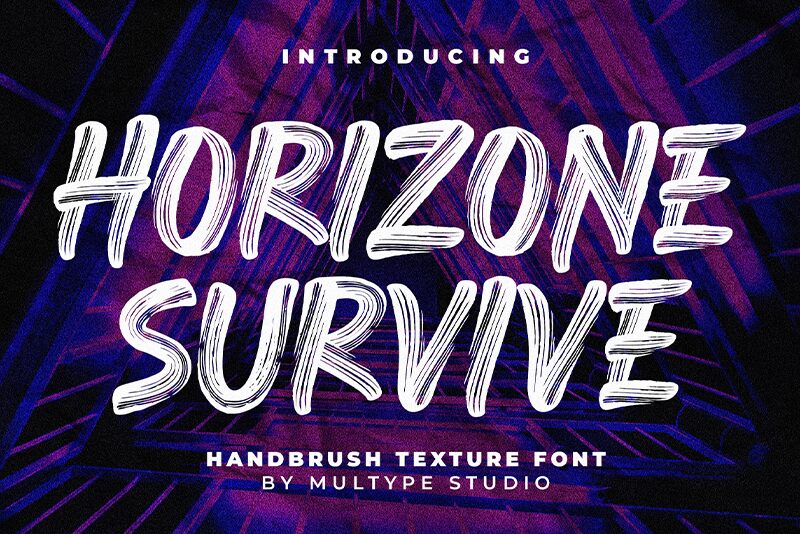
Horizone Survive font by Multype Studio stands out with its grunge texture and rugged appearance. This brush font captures a distressed style that exudes an edgy aesthetic perfect for communicating a rebellious mood. Use it free in your artistic designs.
Plenty of projects would benefit from this amazing typeface including poster design, flyers, magazines, album covers, branding, book covers, packaging design, social media posts.